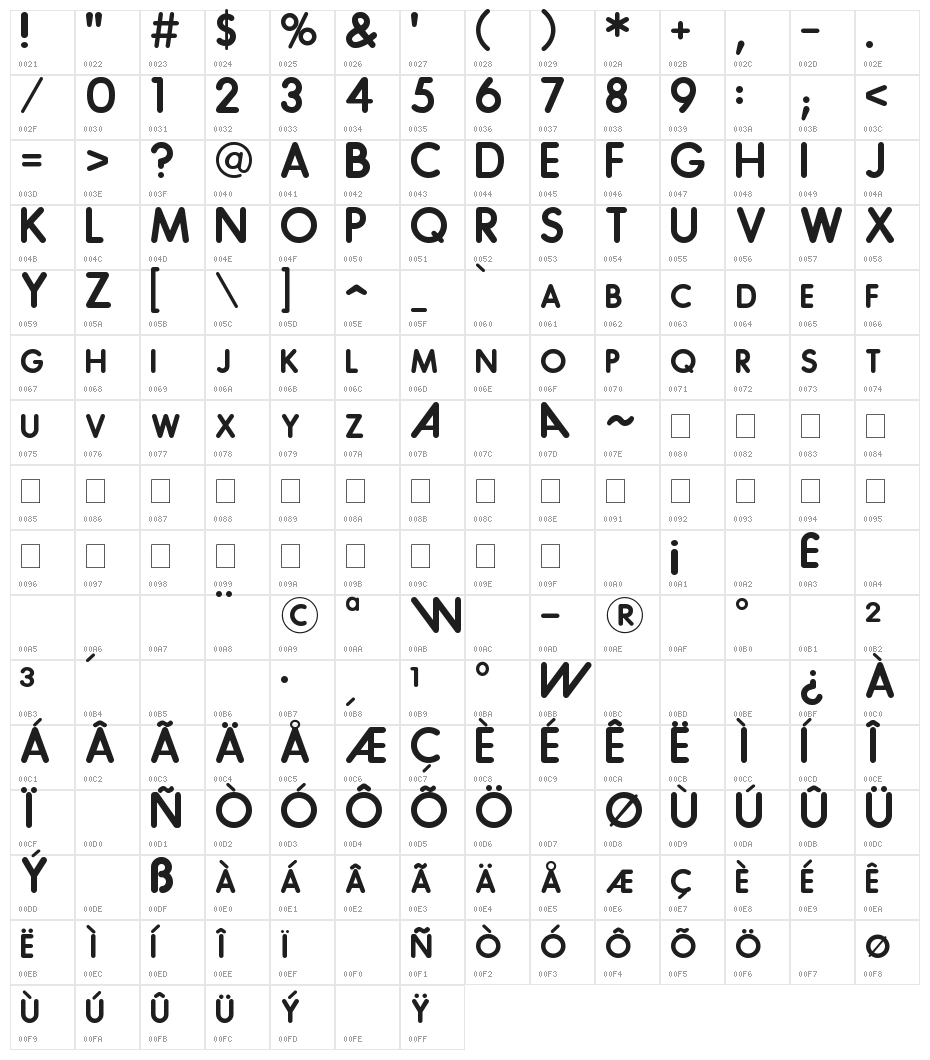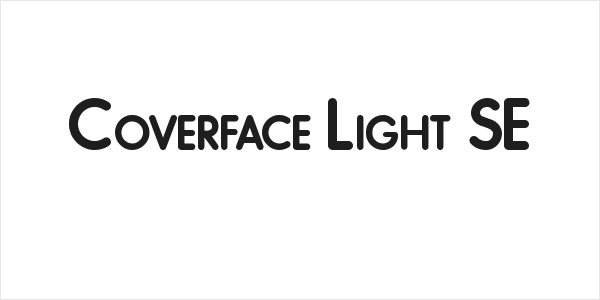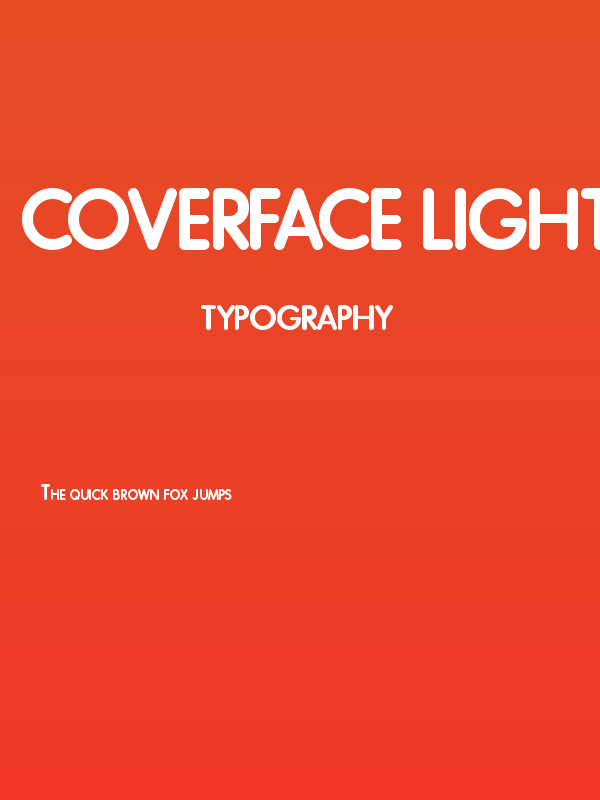
Coverface Light SE Font
| Caso d'uso | Headlines, Logos, Advertising |
| Progetti proposti | Ideal for branding, advertising, packaging, and children's books due to its playful yet professional look. |